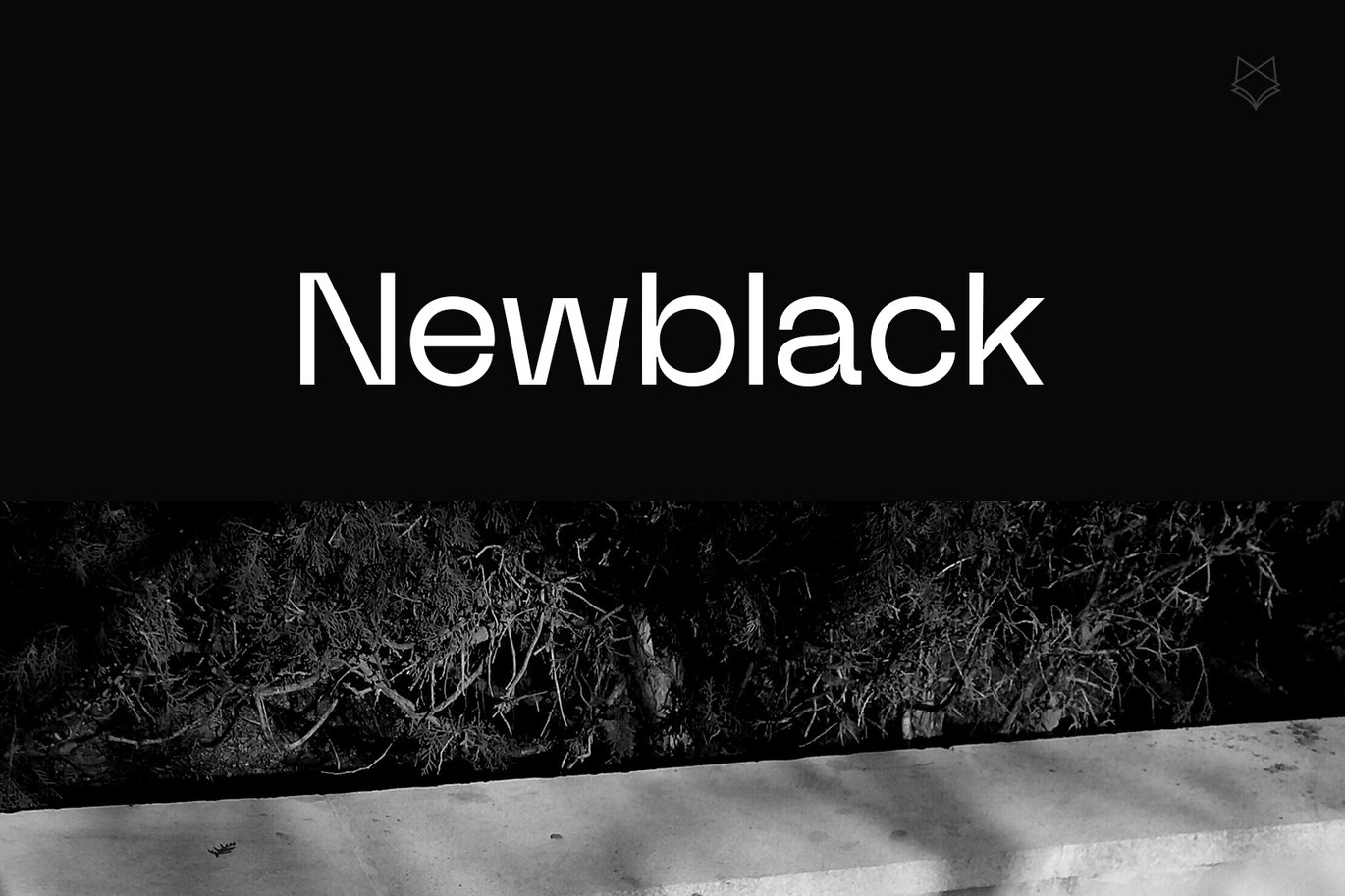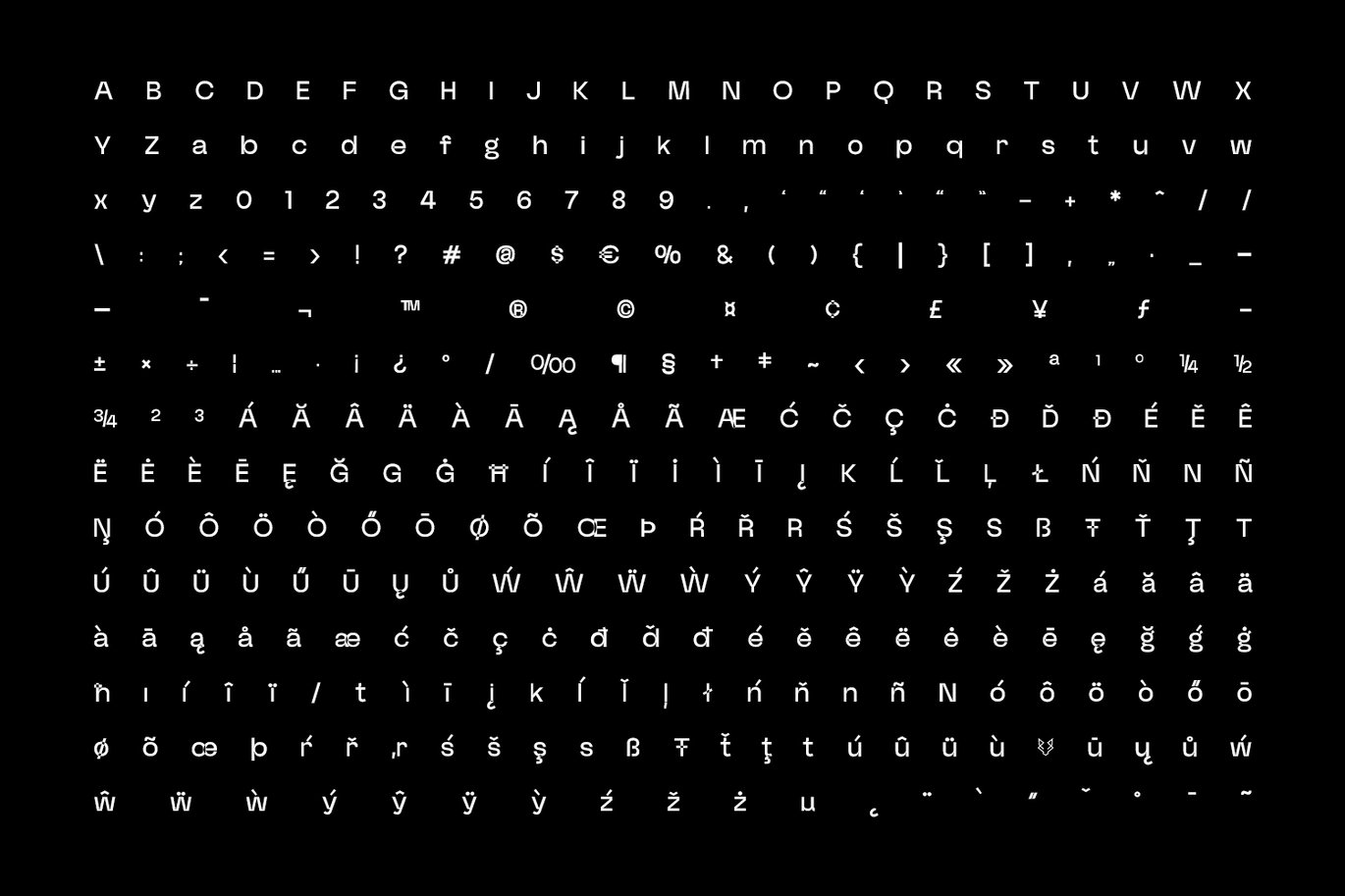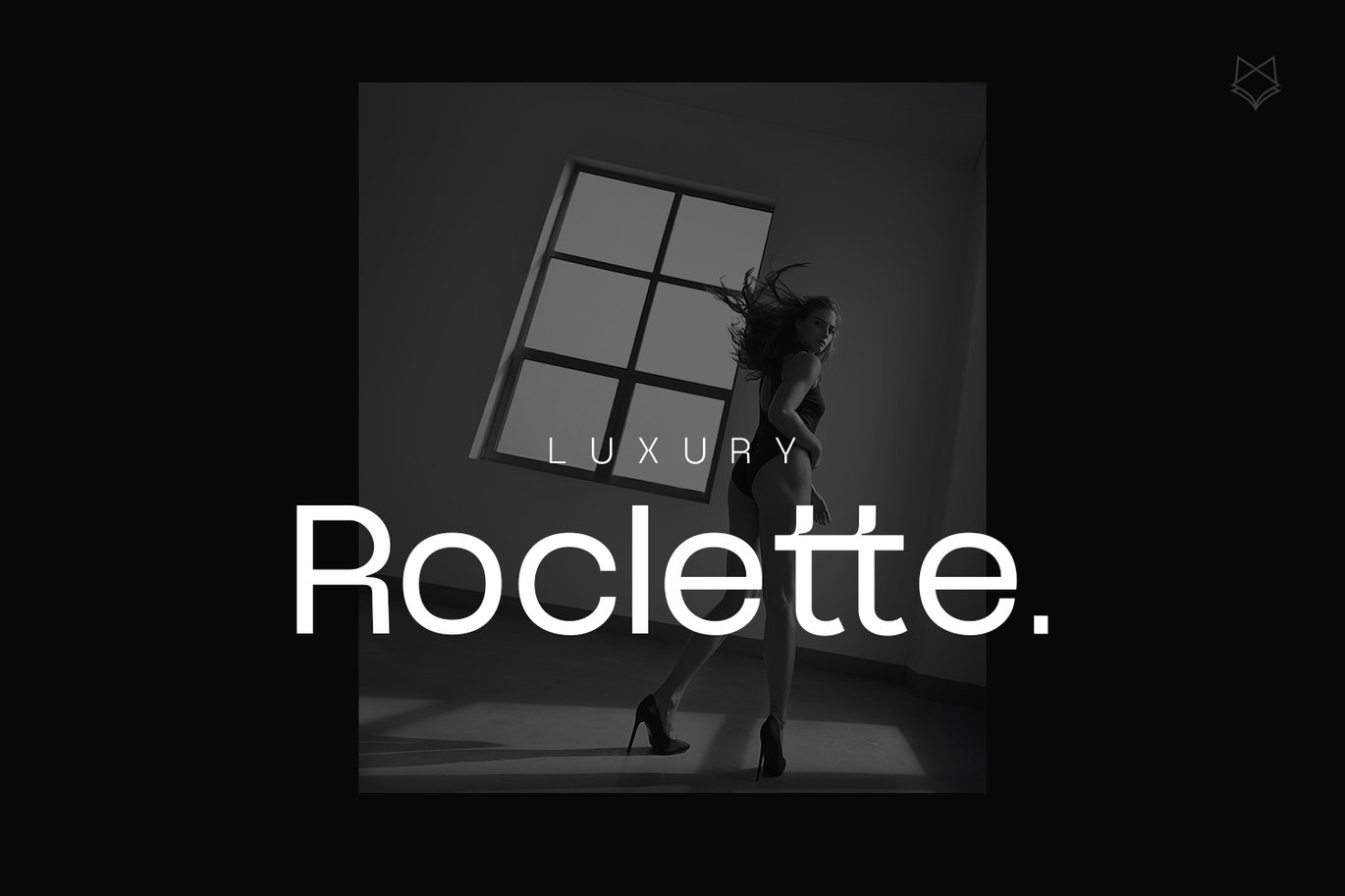
New Black is a wide, flat-sided grotesque with open letter shapes and plenty of space inside each one. Rounded letters like o and e are almost oval, and the overall look is calm and expensive. The LUXURY Roclette. mock-up shows the tone: big, plain words with lots of room around them.
Foxtype makes the family in seven weights, Ultra Light to Extra Bold, with more than 333 glyphs. The free file here comes in TTF, OTF, WOFF, WOFF2 and EOT. The glyph chart covers a long list of accented Latin letters, so it works for most European languages.
Best uses for New Black
- Luxury and fashion branding
- Website headings and navigation
- Magazine and portfolio layouts
- Product packaging
- Posters with short titles
New Black is wide, so pair it with something narrower. Inter suits body text. Cormorant Garamond gives an elegant serif contrast. For a monospaced detail, IBM Plex Mono fits the clean mood.